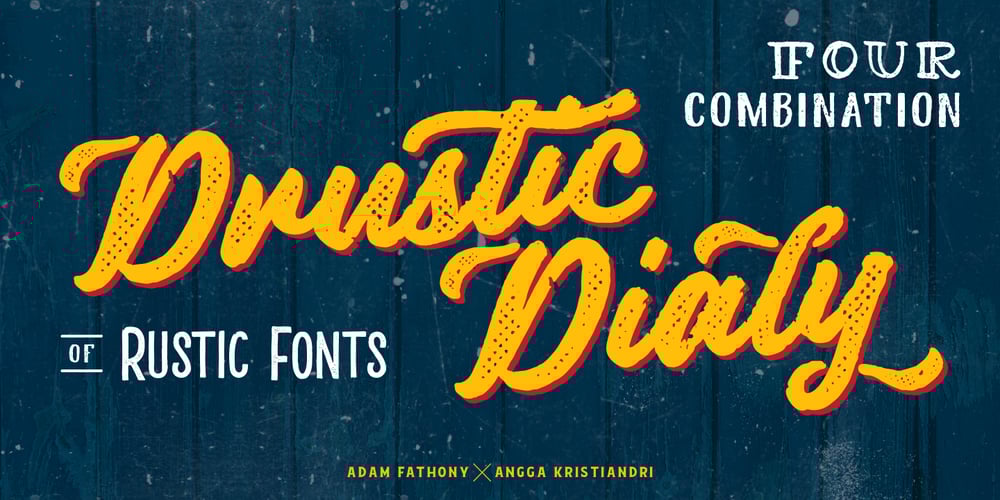
Drustic Dialy Font Family was designed by Adam Fathoni Haris, Angga Kristiandri and published by Adam Fathony. Drustic Dialy contains 7 styles and family package options. Drustic Dialy – Four Combinations Rustic Fonts With a lot exploring the typographic design, content, and style. Most of them are created with the combinations of the typeface. Referring to the outdoor, vintage and old style design there so many great artwork with the textured typeface. So, I in collaborations with my friend choose the styling like this, without needed to add any rough filter effect. The Four Combinations, helps you to create the made a pair of your typography artwork. Comes with the Serif Style, Sans Style, Condensed (also in italic), Script (Original and Halftoned texture) and the last is Catchword for complete the small pieces of artwork.